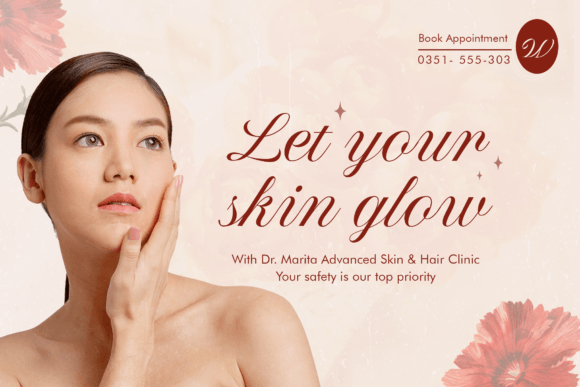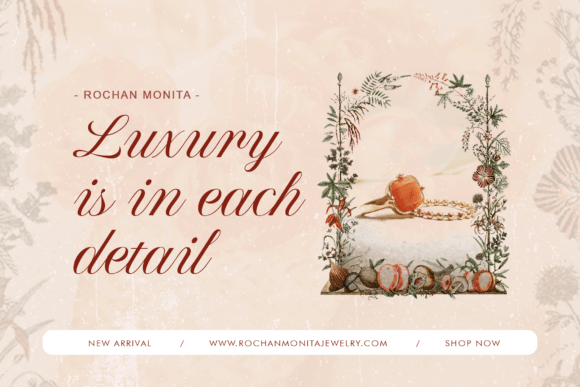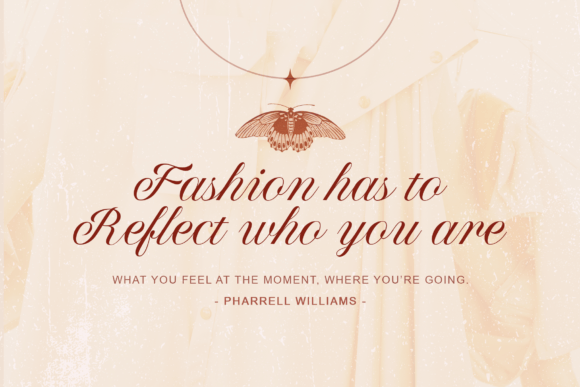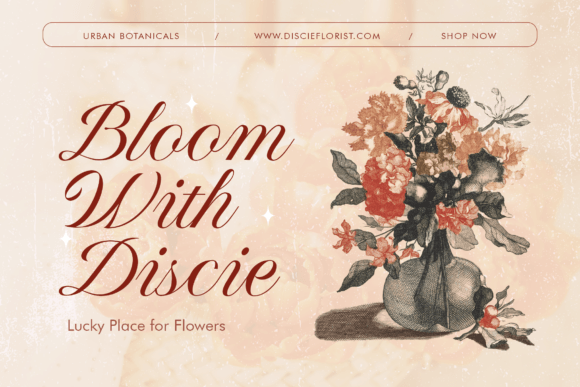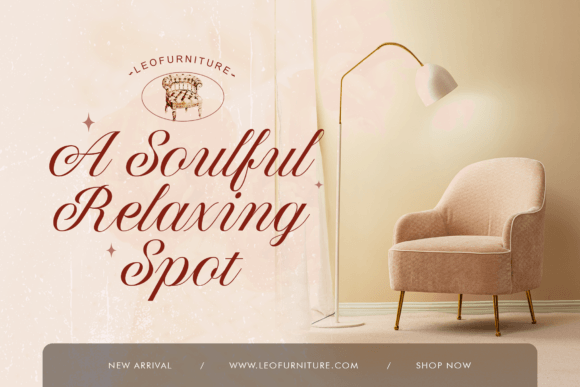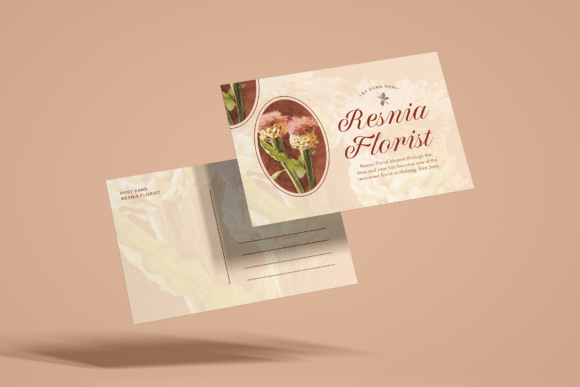
Experience the Allure of Heartache Script: Elevate Your Designs with Timeless Elegance
Are you a designer or crafter looking to add a touch of classic romance and sophistication to your projects? Look no further than Heartache Script, a stunning Copperplate calligraphy script font that embodies the essence of heartfelt emotions. With its elegant and fancy design, Heartache Script is the perfect choice for anyone seeking to bring a sense of timeless beauty to their work.
The Beauty of Heartache Script
Heartache Script is a masterfully crafted font that showcases the art of Copperplate calligraphy. Its delicate and refined strokes evoke a sense of nostalgia and romance, making it ideal for projects that require a touch of classic elegance. Whether you’re designing wedding invitations, romantic getaways, or simply want to add a personal touch to your digital creations, Heartache Script is the perfect choice.
What Sets Heartache Script Apart
So, what makes Heartache Script stand out from other fonts? Here are just a few key features that set it apart:
- Elegant Design: Heartache Script boasts an elegant and fancy design that adds a touch of sophistication to any project.
- Timeless Beauty: With its classic Copperplate calligraphy style, Heartache Script exudes a sense of timeless beauty that never goes out of style.
- Emotional Connection: Heartache Script is designed to capture the essence of heartfelt emotions, making it perfect for projects that require a personal touch.
- Versatility: From wedding invitations to digital creations, Heartache Script is versatile enough to be used in a wide range of projects.
How to Use Heartache Script in Your Designs
Using Heartache Script in your designs is easy. Here are a few tips to get you started:
- Pair it with Other Fonts: Heartache Script pairs beautifully with other fonts, making it easy to create stunning contrast and visual interest.
- Experiment with Colors: From soft pastels to rich jewel tones, Heartache Script looks beautiful in a wide range of colors.
- Add Embellishments: Consider adding embellishments, such as flowers or greenery, to give your designs an extra touch of elegance.
Why Designers and Crafters Love Heartache Script
Heartache Script has quickly become a favorite among designers and crafters, and for good reason. Here are just a few reasons why:
- Easy to Use: Heartache Script is easy to use, even for those with limited design experience.
- High-Quality Design: Heartache Script is a high-quality font that is designed to deliver stunning results.
- Unique and Versatile: Heartache Script is a unique and versatile font that can be used in a wide range of projects.
In conclusion, Heartache Script is a stunning Copperplate calligraphy script font that embodies classic romance and timeless beauty. With its elegant and fancy design, Heartache Script is the perfect choice for designers and crafters looking to add a touch of sophistication to their projects. Whether you’re designing wedding invitations, romantic getaways, or simply want to add a personal touch to your digital creations, Heartache Script is sure to deliver. So why wait? Indulge in the beauty of Heartache Script today and elevate your designs with a touch of timeless elegance.
Experience the allure of Heartache Script’s classic calligraphy and let love blossom in your designs.